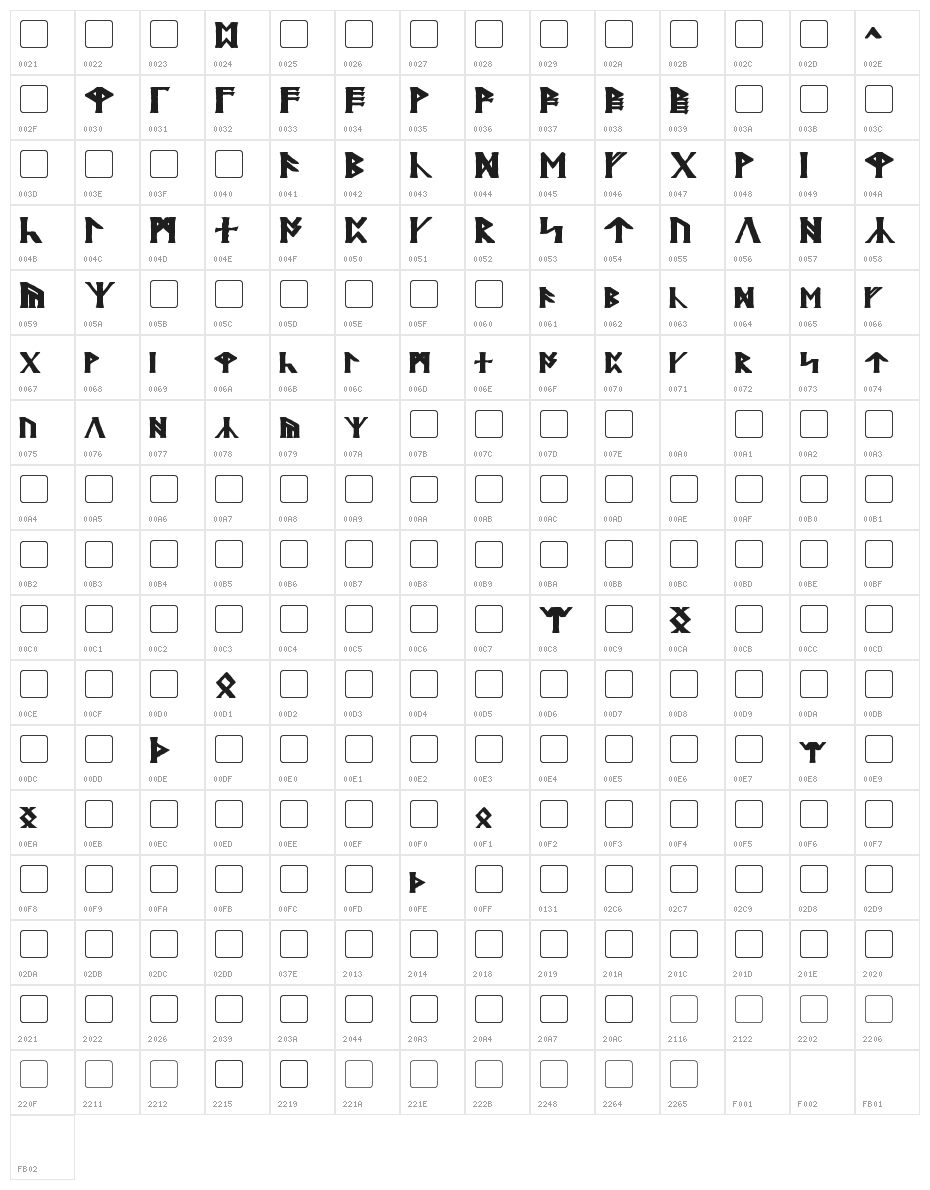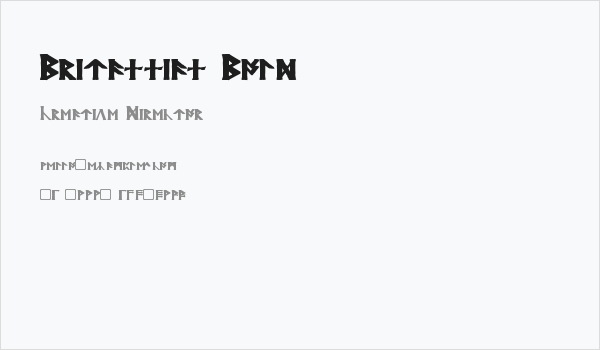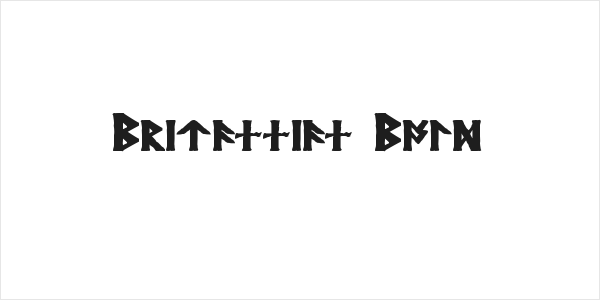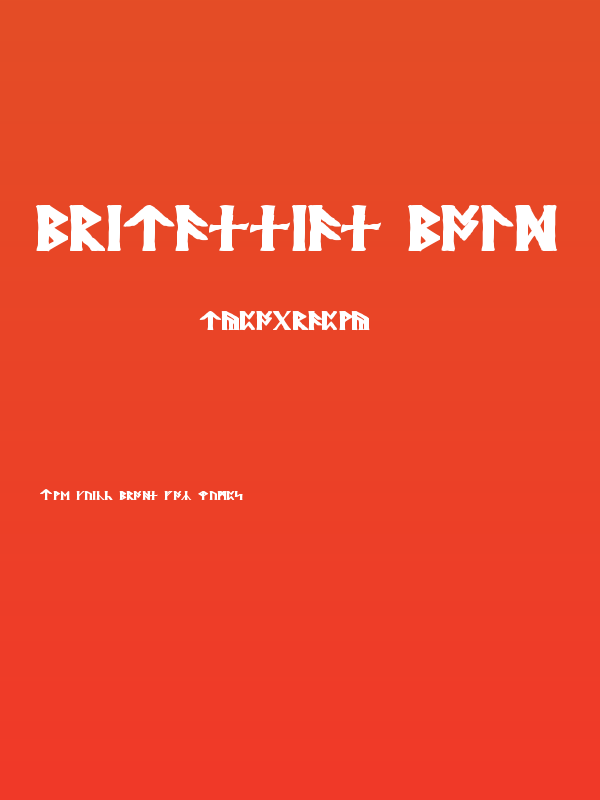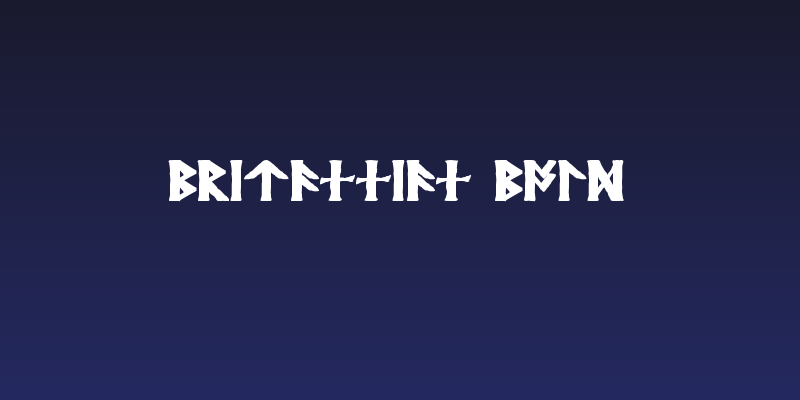
Britannian Bold Font
Britannian Bold Description
This font features a bold, angular design reminiscent of ancient runic inscriptions. The characters are heavily stylized with sharp, jagged edges and a strong presence, making it ideal for creating a sense of mystery or antiquity. The uppercase letters are particularly striking, with each character displaying unique geometric forms that suggest a historical or fantasy theme. The font's thick strokes and high contrast make it stand out, while the spacing between characters is relatively tight, enhancing its compact and robust appearance.
| Proposed Projects | Ideal for fantasy-themed projects, historical recreations, game design, or any creative work requiring a mystical or ancient aesthetic. |